When launching a new brand or designing a fresh creative project, the right typography can make all the difference. These startup fonts are perfect for forward-thinking brands, creative agencies, and designers seeking unique and expressive typefaces that communicate innovation and style. From sleek modern lines to bold character-driven letters, this curated selection of fonts will help your projects stand out in a competitive landscape
Griffiths Font
Griffiths is a sleek italic serif typeface featuring a 23-degree slant, designed to pair harmoniously with dynamic calligraphic fonts. Its refined, stylized forms make it ideal for branding, logos, labels, and any design that calls for a sophisticated, elegant touch.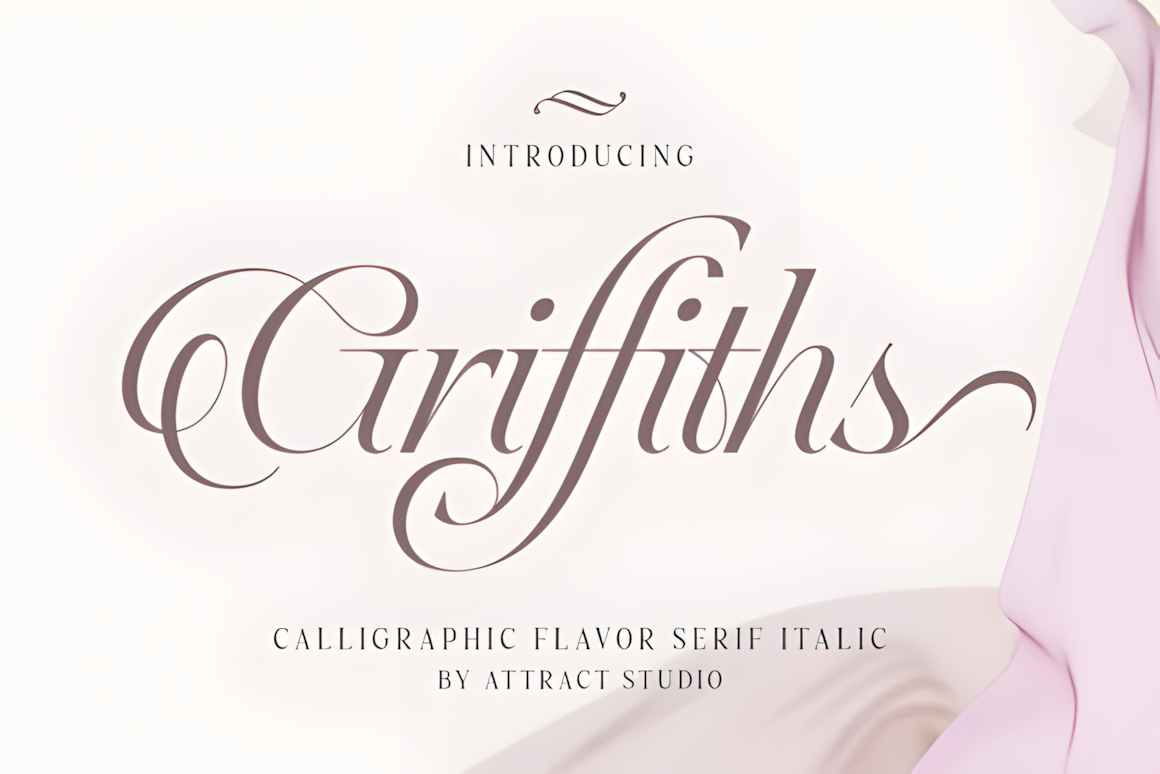
Offaly Font
Offaly is a playful geometric sans serif typeface with a bold, contemporary personality. Perfect for logos, branding, headlines, posters, and packaging, it shines when mixing uppercase and lowercase letters to create striking and memorable typographic combinations.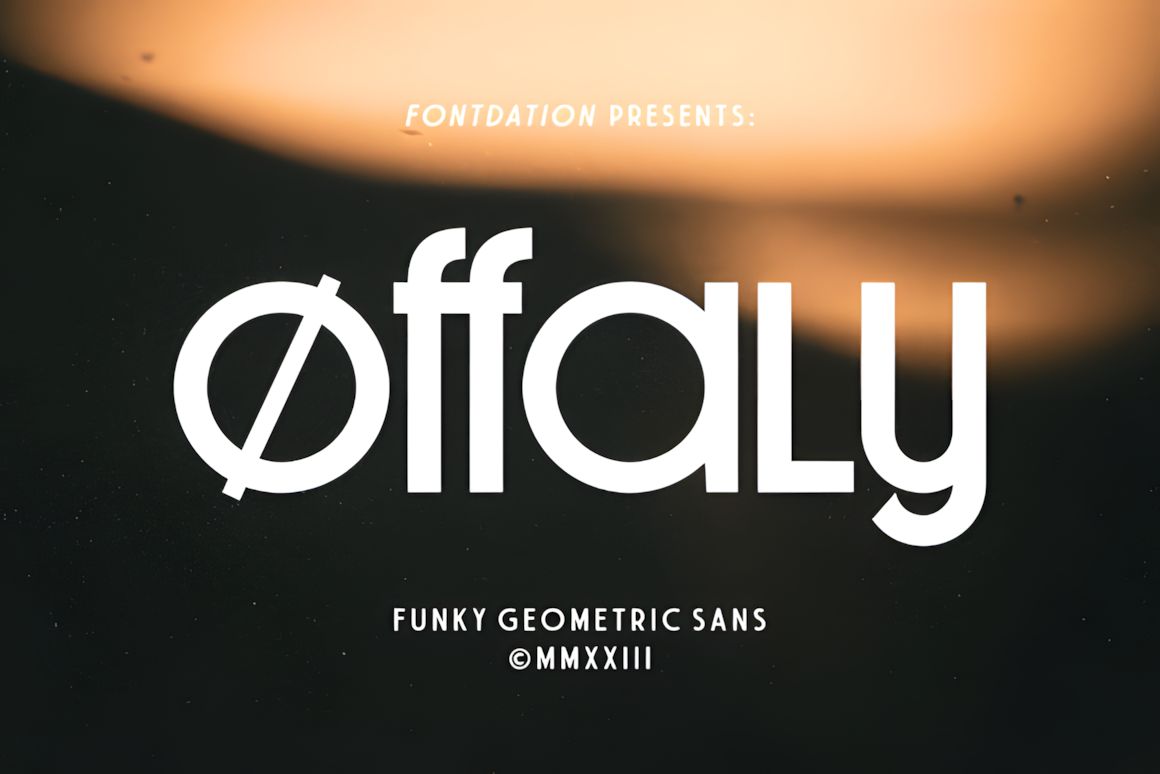
Esthel Font
Esthel is a refined high-contrast display typeface, designed to make a striking impression at large sizes. Featuring stylistic alternates for both uppercase and lowercase letters, along with standard ligatures, it offers versatile creative possibilities. Ideal for logos, banners, advertising, packaging, book covers, magazines, headings, and detailed text, Esthel combines elegance and visual impact in every application.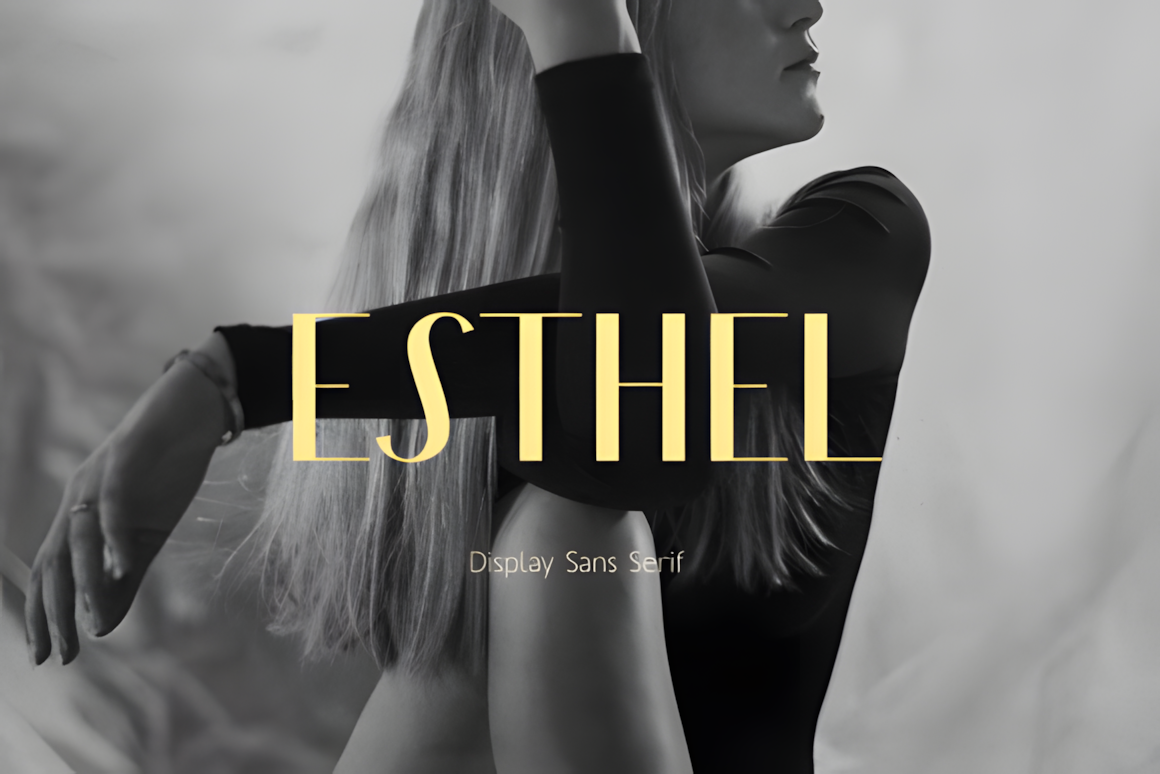
Navue Font
Navue is an elegant, feminine typeface crafted to elevate the sophistication of any brand. Its graceful letterforms make it ideal for displays, print materials, branding, and a wide range of design applications, adding a refined and polished touch to every project.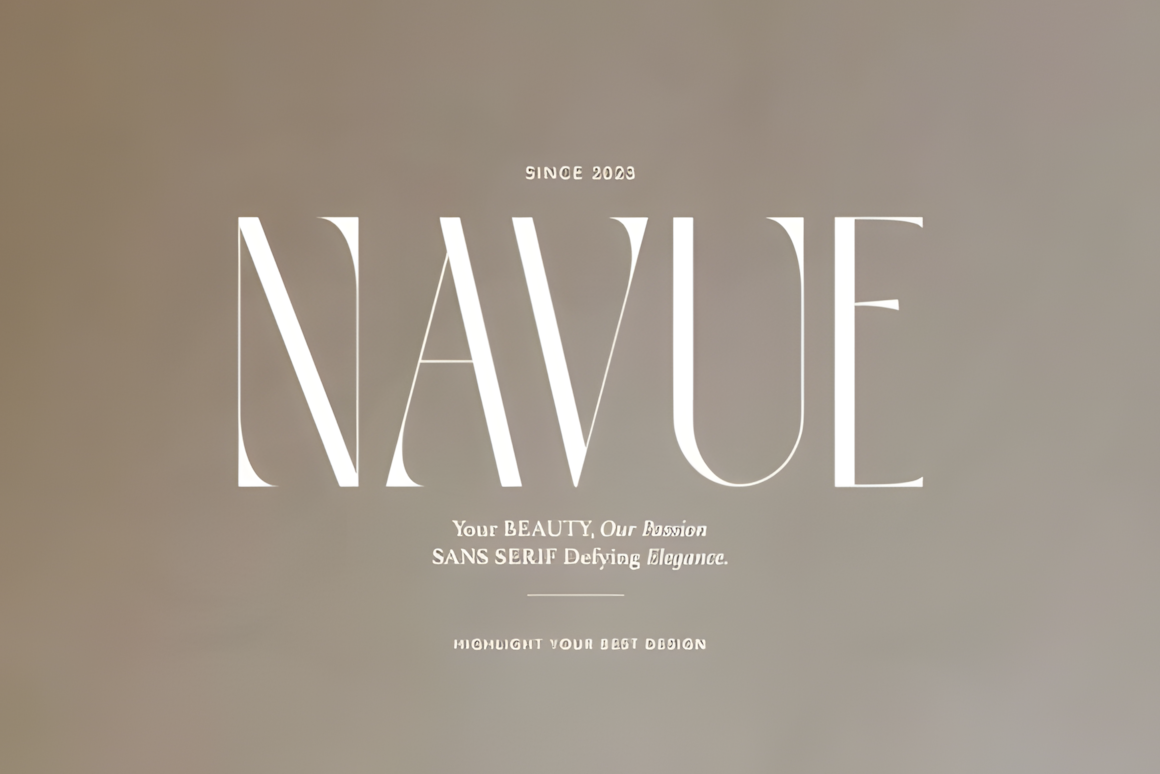
Soffie Font
Introducing Soffie Bold Display Sans Serif.
Soffie is a modern and elegant font, best used as a display for headings, logos, branding, magazines, product packaging and invitations. Soffie comes with clean lines and smooth curves, giving any project an extra touch of class.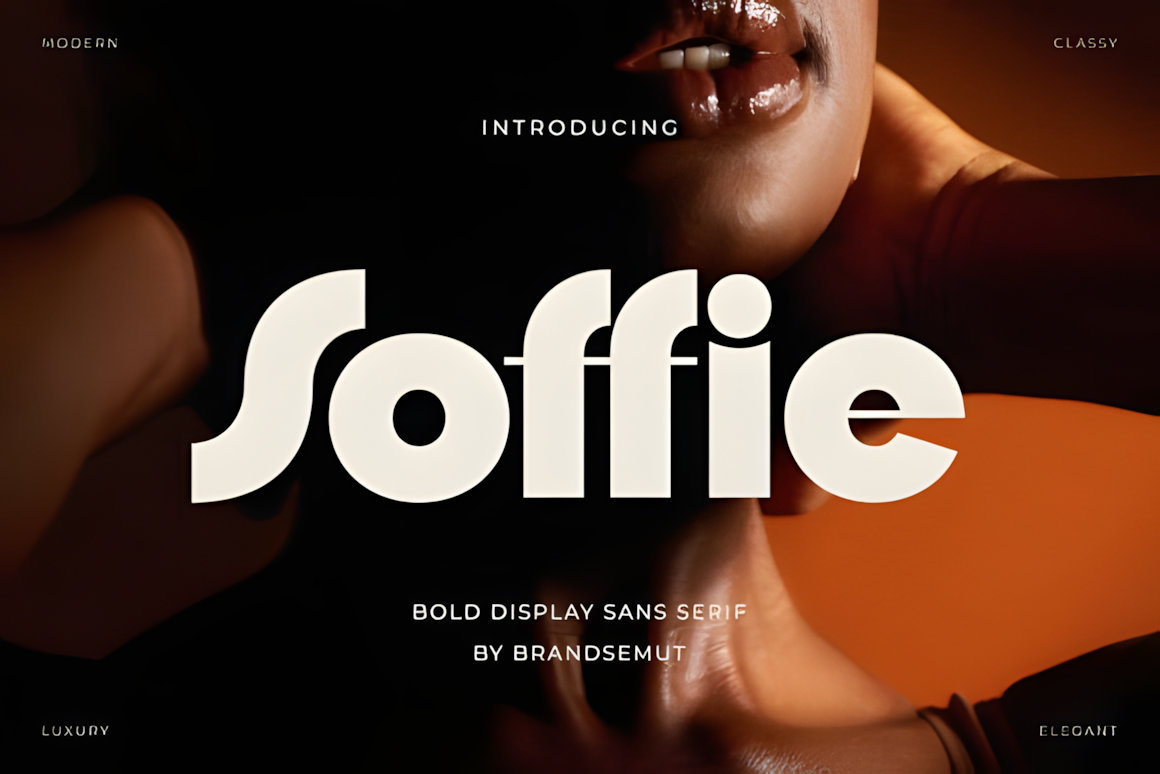
Catrose Font
Catrose is a charming serif typeface that evokes a playful, nostalgic vintage vibe. Perfect for adding a retro flair, it brings character and timeless appeal to logos, packaging, posters, and any design project seeking a distinctive, old-school touch.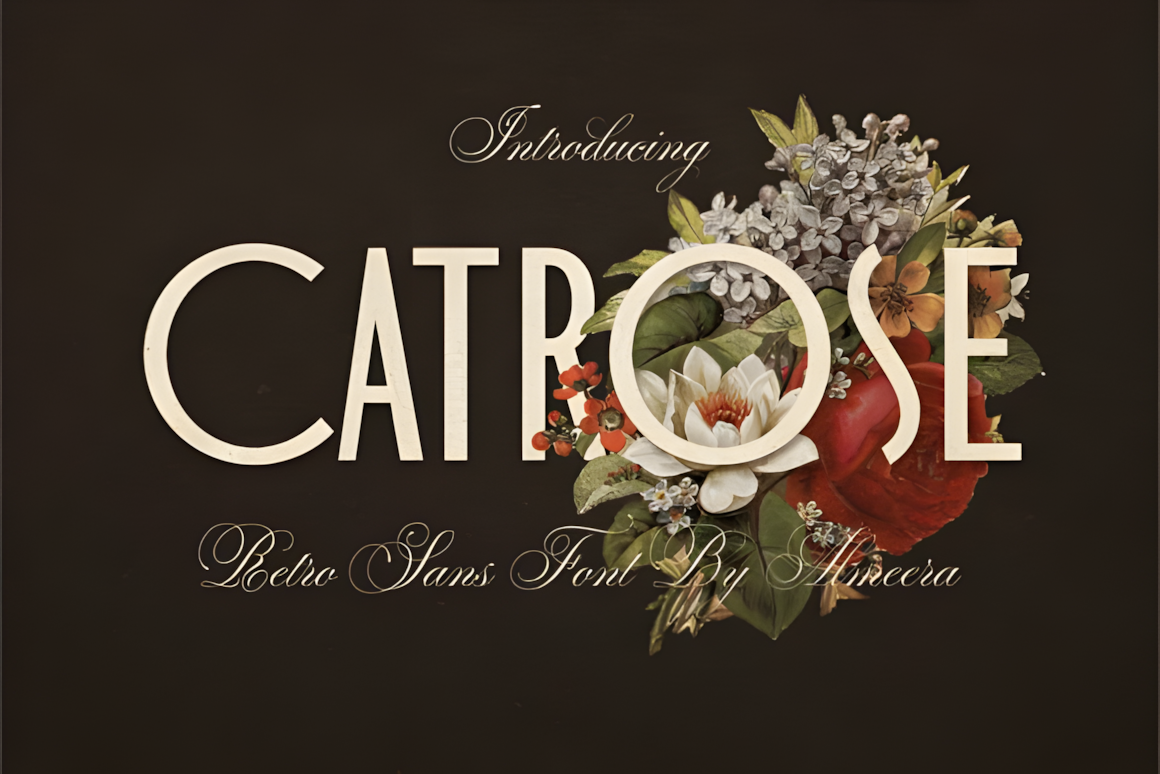
Oulza Font
Oulza is an elegant serif typeface that radiates sophistication and timeless style. Available in Regular and Italic styles, it offers versatile solutions for high-end branding, editorial layouts, and luxurious presentations. With sharp, refined edges and perfectly balanced proportions, Oulza delivers a classic, polished appearance. Its Italic style features carefully designed ligatures, creating graceful, fluid connections between letters that enhance the font’s artistic elegance and elevate any design with refined charm.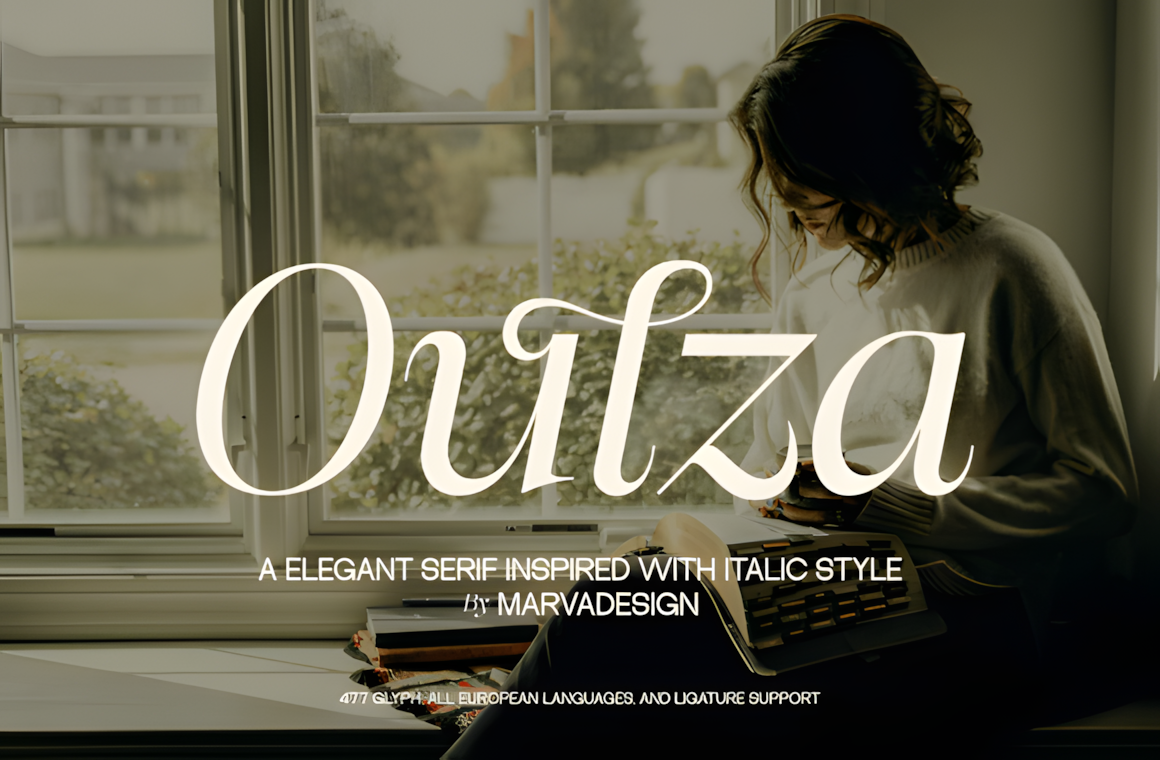
Loqura Font
Loqura is a bold geometric sans serif typeface designed to redefine modern branding. Its sleek lines, sharp curves, and Y2K-inspired aesthetic give it a distinctive, futuristic edge, making it ideal for logos, stationery, and impactful headlines. With a condensed structure and minimalist design, Loqura delivers strong visual presence across both digital and print platforms, ensuring your brand commands attention with clarity and style.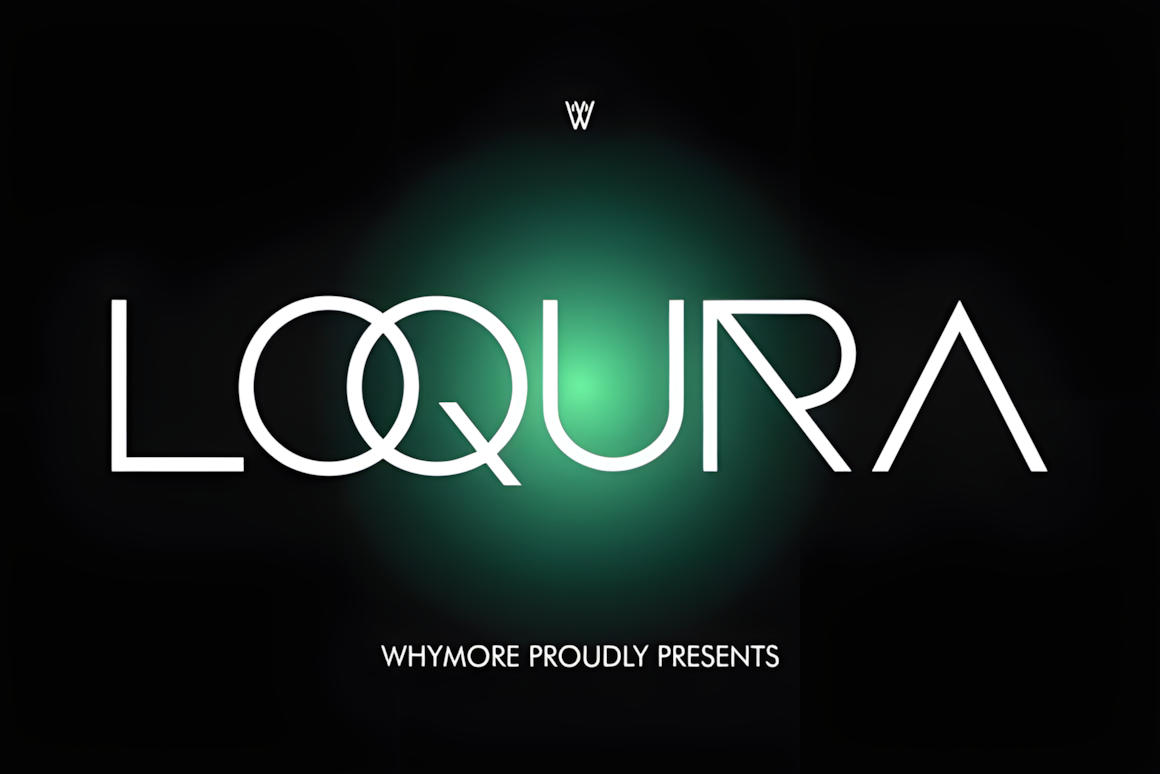
Raizent Font
Raizent is an experimental sans serif typeface that reinvents classic forms with bold, futuristic curves. Its monolinear, chunky letterforms feature distinctive rounded entry and exit strokes—most notable in characters like ‘R’, ‘a’, and ‘z’—creating a modern, slightly playful personality. With its unique structure and striking presence, Raizent makes any design instantly memorable and visually dynamic.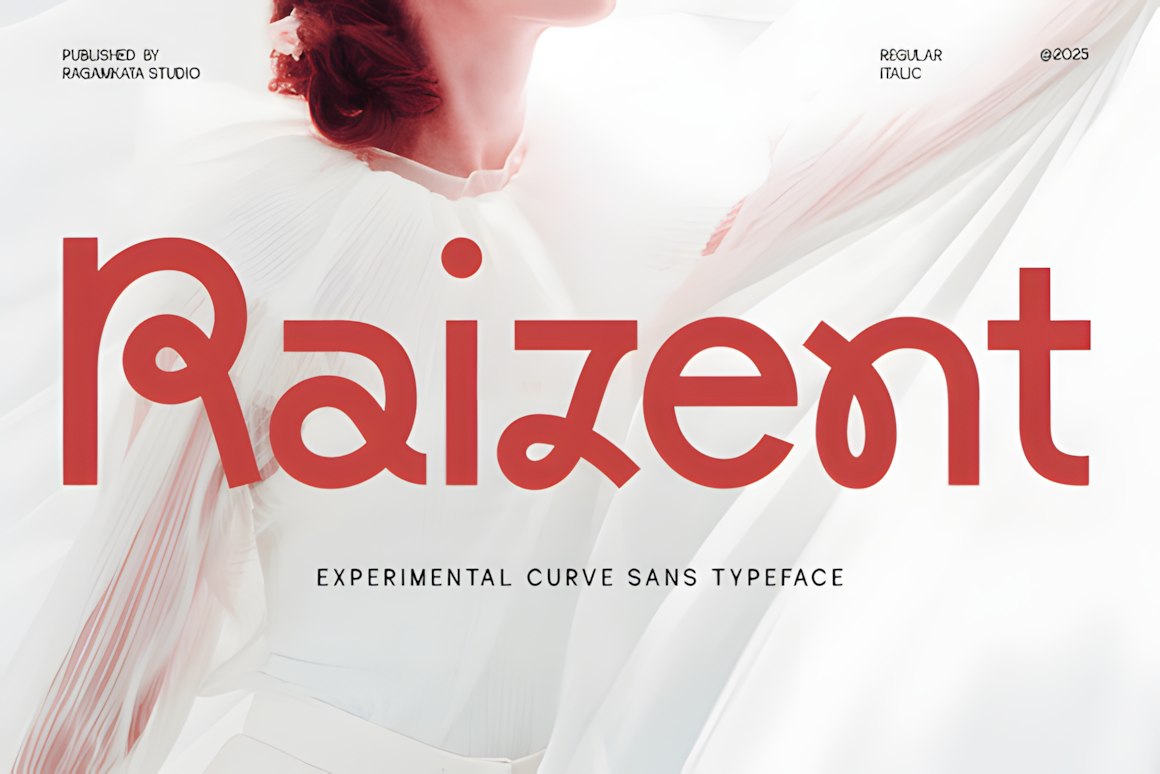
Chrome Font
Chrome is a semi-condensed serif typeface that blends elegance with versatile functionality. Its striking uppercase characters and refined details bring sophistication and visual appeal, making it an ideal choice for elevating branding, editorial layouts, and design projects with a polished, high-end finish.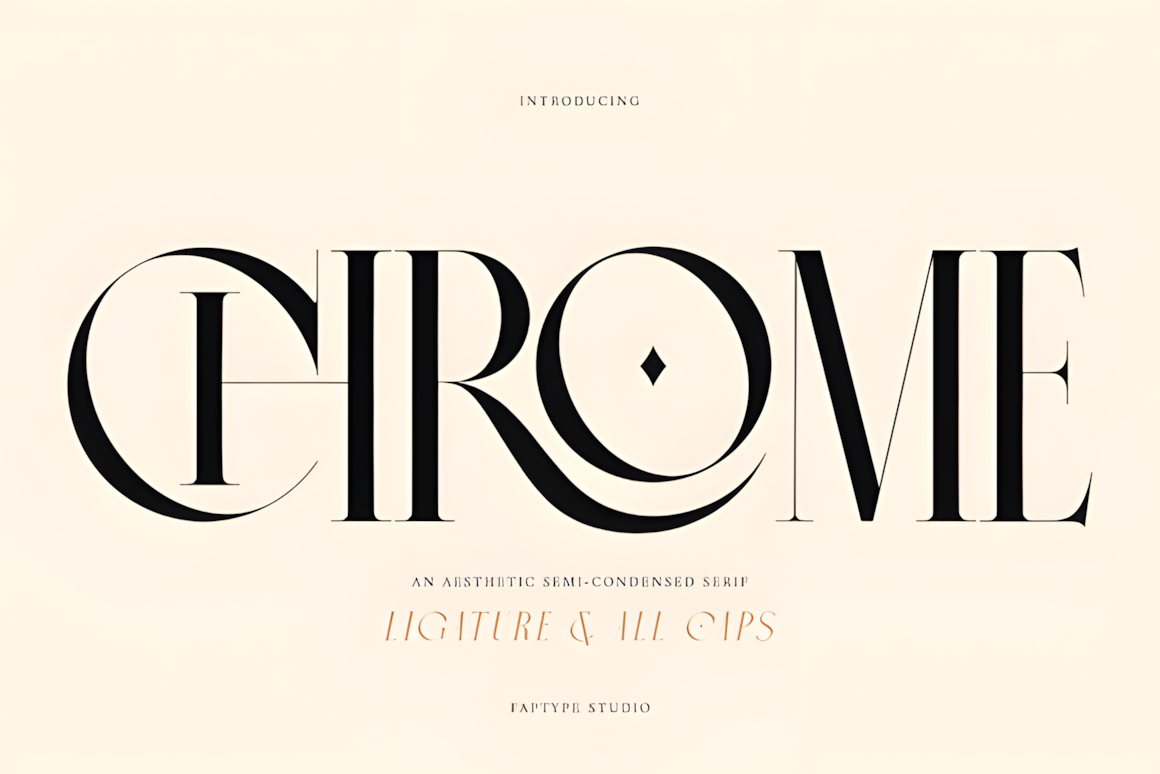
Elevate Your Brand with Creative Typography
These fonts provide a mix of expressive, innovative, and distinctive styles perfect for startups and creative projects. Whether designing a modern logo, a unique product, or standout digital media, this collection of startup and creative fonts will help your brand speak with personality, clarity, and impact.